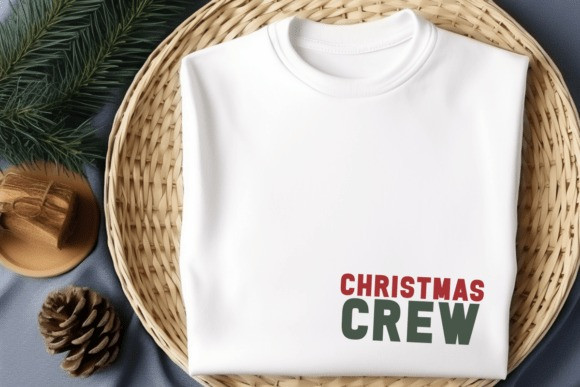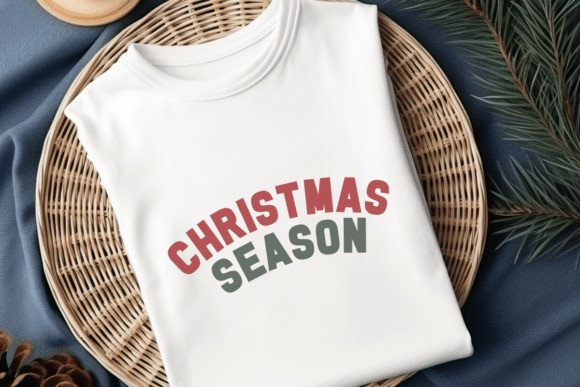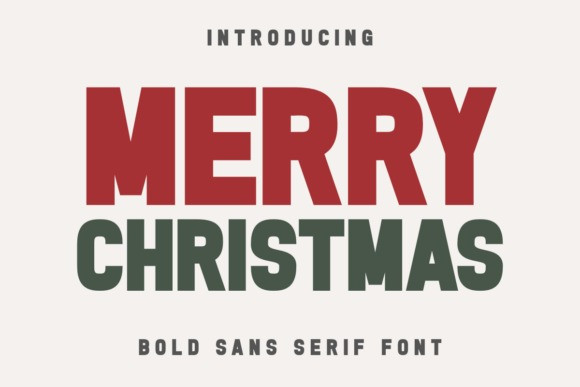
Merry Christmas Sans Font
Merry Christmas Sans Font is a bold and festive sans-serif font that captures the joyful spirit of the holiday season. With its strong and modern letterforms, this font is perfect for Print On Demand (POD) projects like Christmas t-shirts, mugs, posters, greeting cards, and tote bags.
Its clean yet festive style also makes it a great choice for movie titles, holiday branding, DIY crafts, and seasonal packaging. Whether used for Cricut, Silhouette, or sublimation printing, this font adds cheerful impact to every design. Available in OTF and TTF formats and fully PUA encoded for easy access.